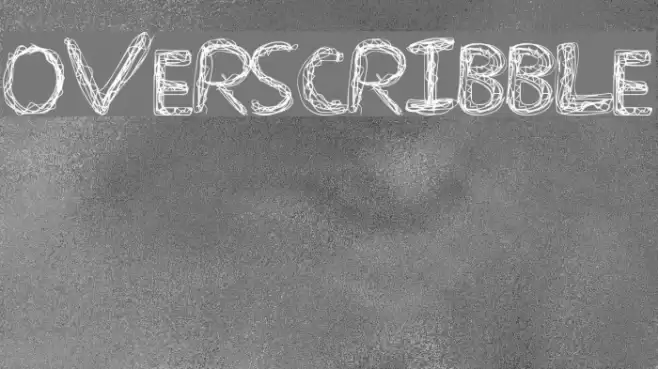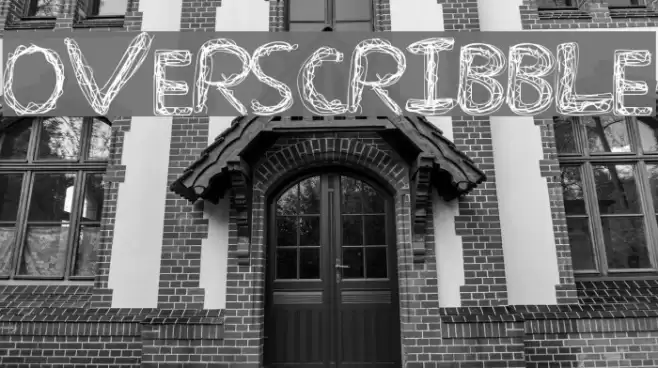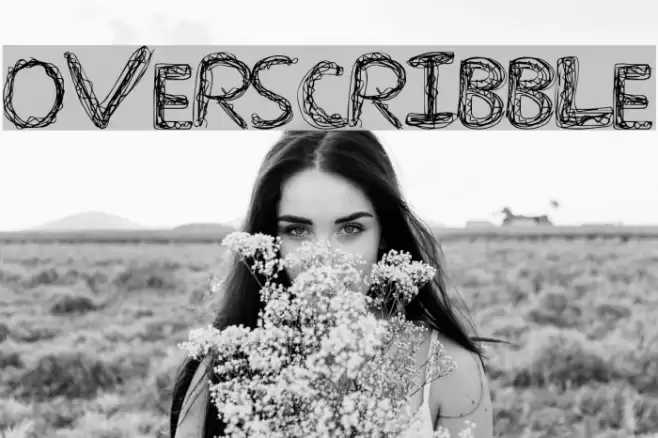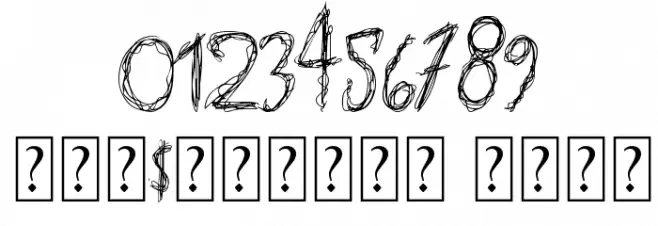
OverScribble Font
OverScribble Description
This font features a unique scribbled style, giving the appearance of hand-drawn letters with overlapping lines and a sketch-like quality. Each character is crafted with a chaotic yet intentional design, creating a sense of movement and energy. The strokes are uneven, with varying thicknesses that add to the dynamic and artistic feel. This font captures a raw and expressive aesthetic, making it stand out with its unconventional and creative approach. The overall look is playful and informal, perfect for projects that require a touch of whimsy and individuality.
A scribbled, hand-drawn font with a dynamic and artistic style from Uncategorized fonts.
- Proposed Projects: Ideal for creative projects such as posters, album covers, children's books, and artistic branding.